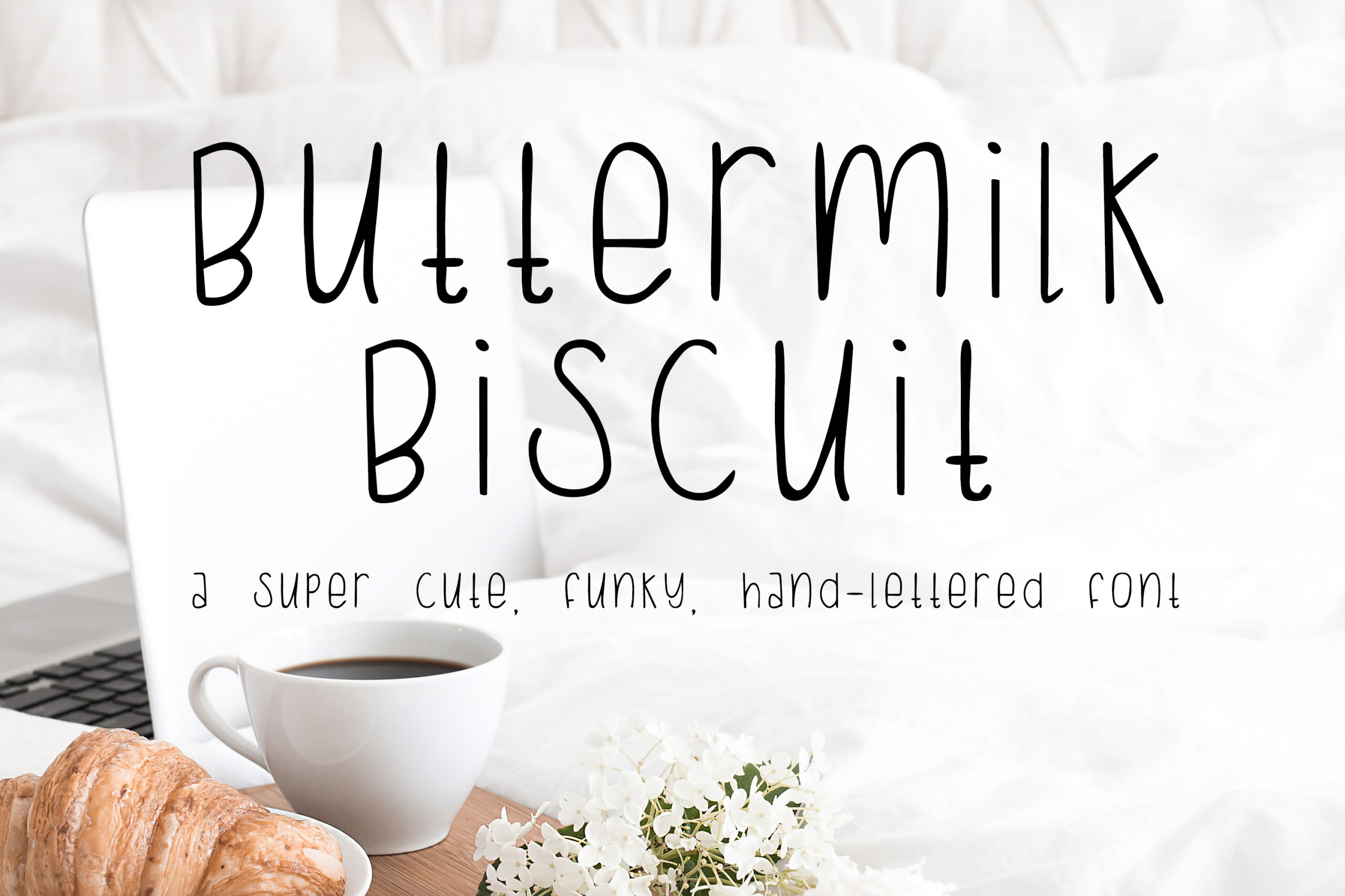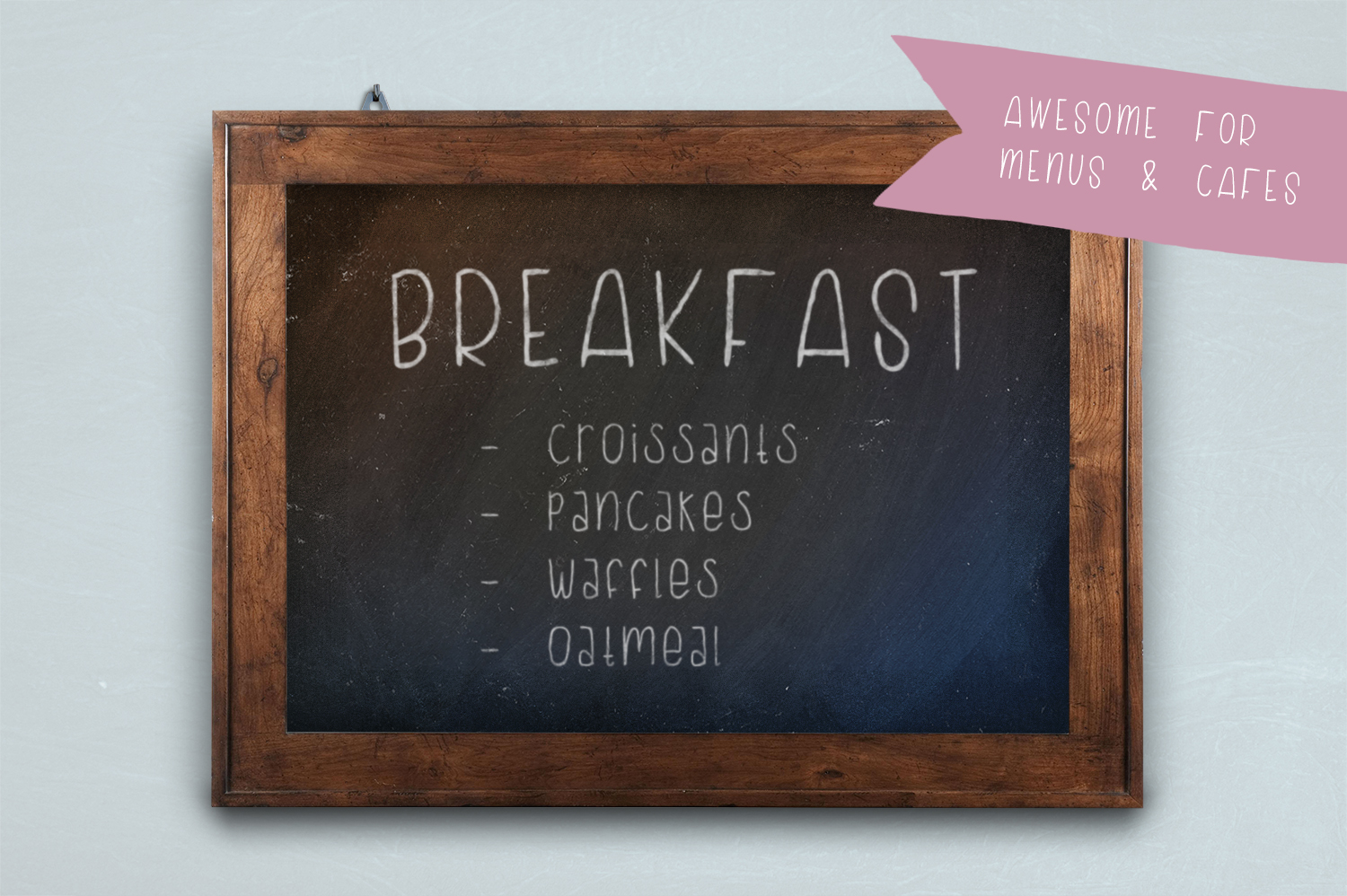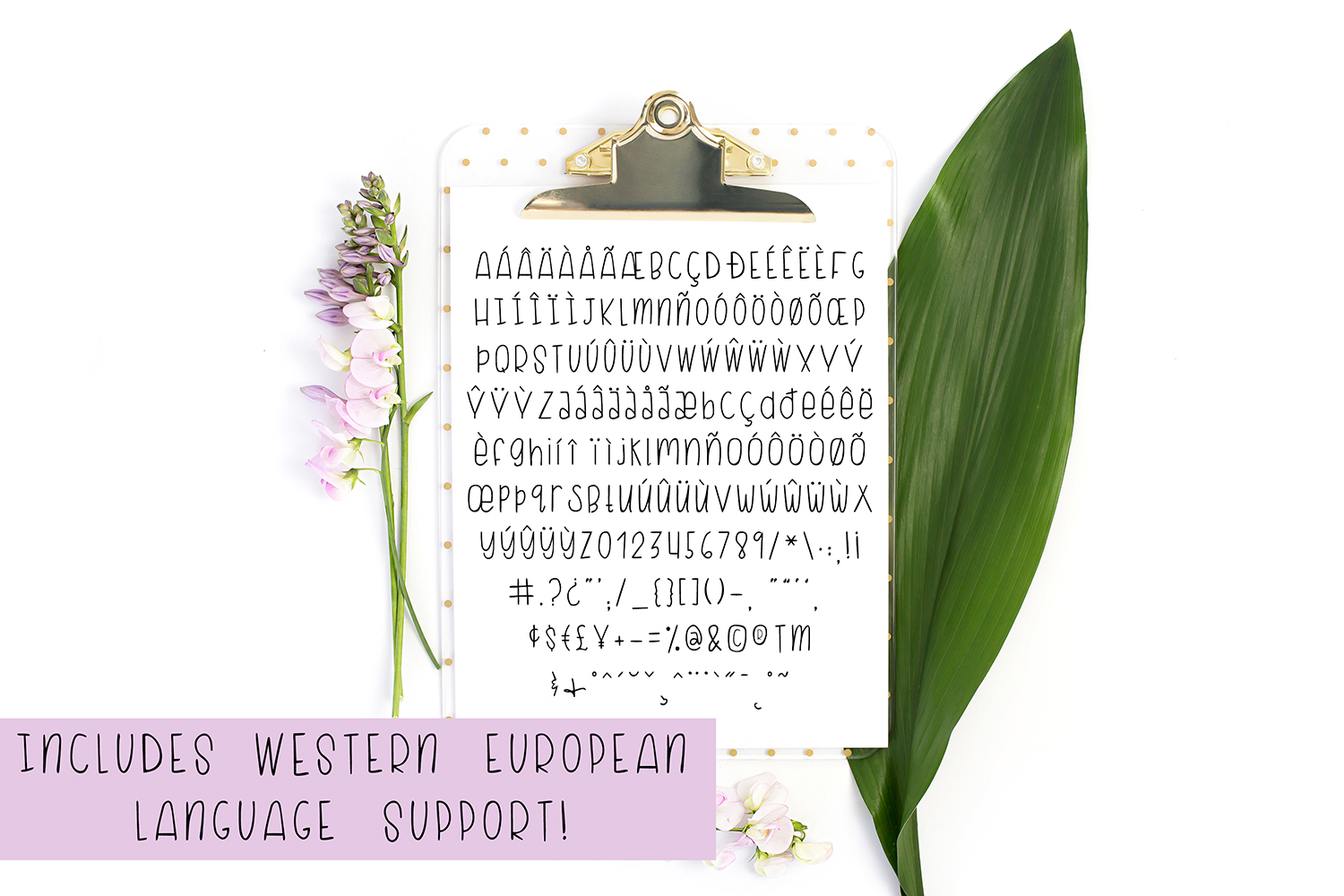
Buttermilk Biscuit Font
About Buttermilk Biscuit Font
Put a little South in your mouth ???? Buttermilk Biscuit is a super cute, funky hand-lettered font, made on an iPad. With a playful, whimsical personality, Buttermilk Biscuit would be perfect for menus or cafes, birthday invitations, or branding for kid-centric businesses.
Buttermilk Biscuit includes Western European support.